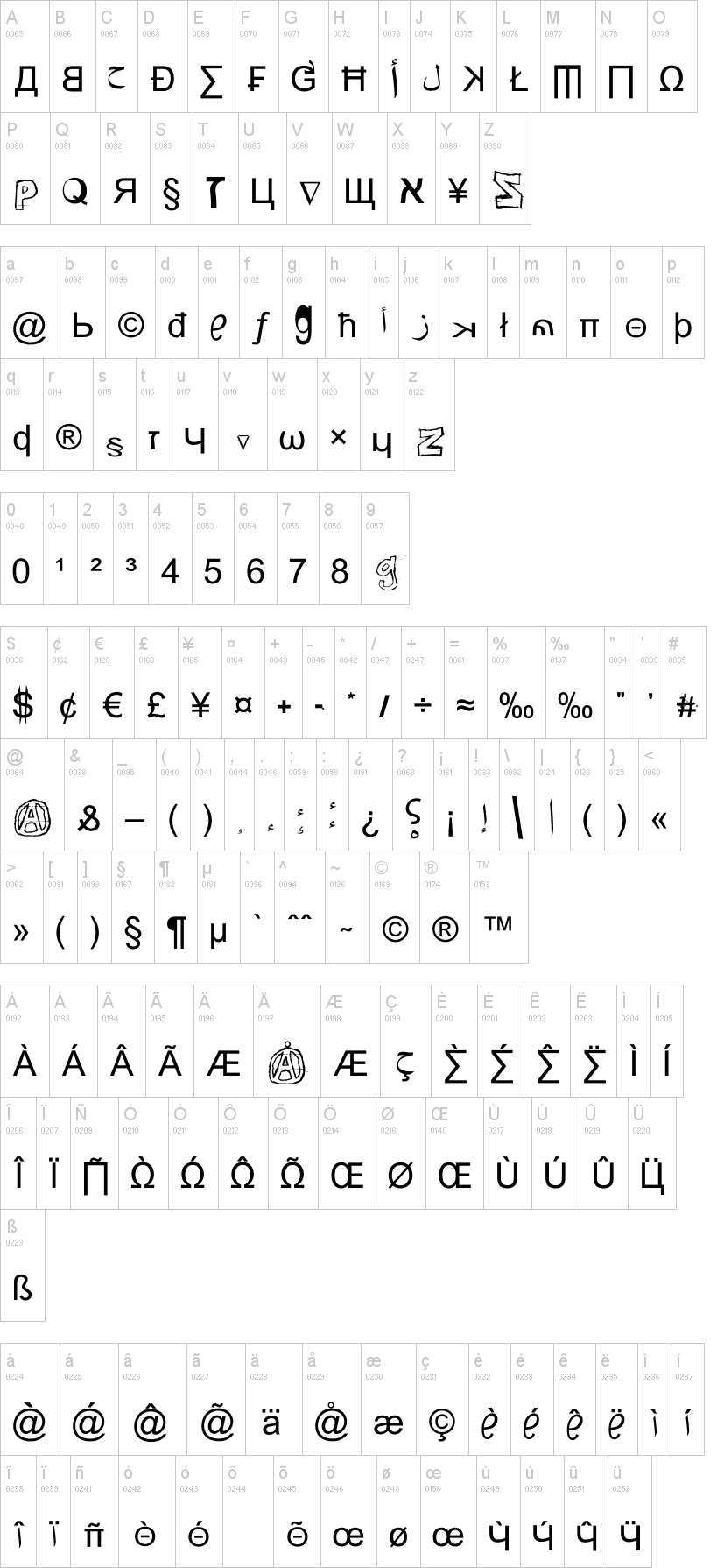
Шрифт Weird Tucan-Noobs from Saint Seson
Its the alternative letters from arial. But I still created it. And it took me a while. Copyrights and stuff are mine.